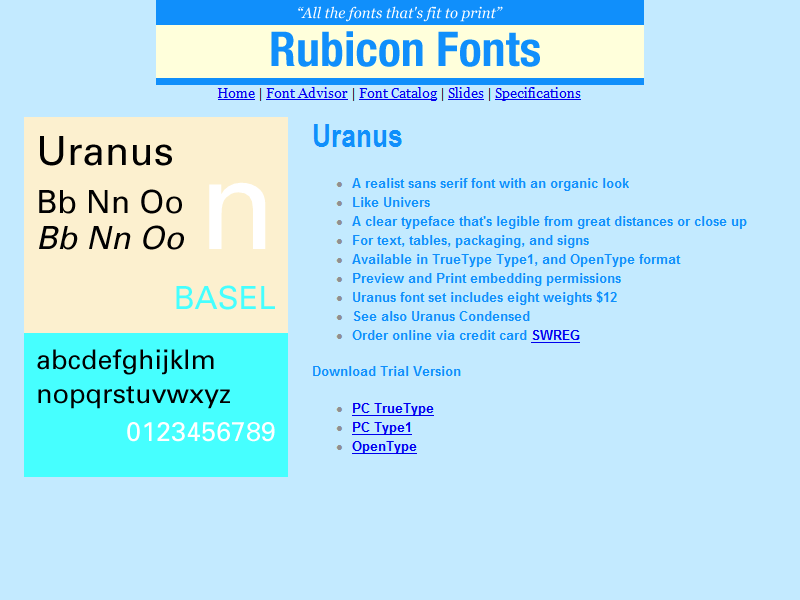
Uranus Font TT
Realist sans serif font with an organic feel. Like Univers. A clear typeface that's legible from great distances or close up. An all purpose design, great for text, headlines, packaging, and signs. Use in any size. Accurate and hinted, matching font metrics, standard character set, kerning pairs. Professional print quality for inkjet, laser, typesetter to 3500 dpi. Purchasers receive 8 font variants as follows: Light, Light Oblique, Normal, Oblique, Bold, Bold Oblique, Extrabold, Extrabold Oblique.